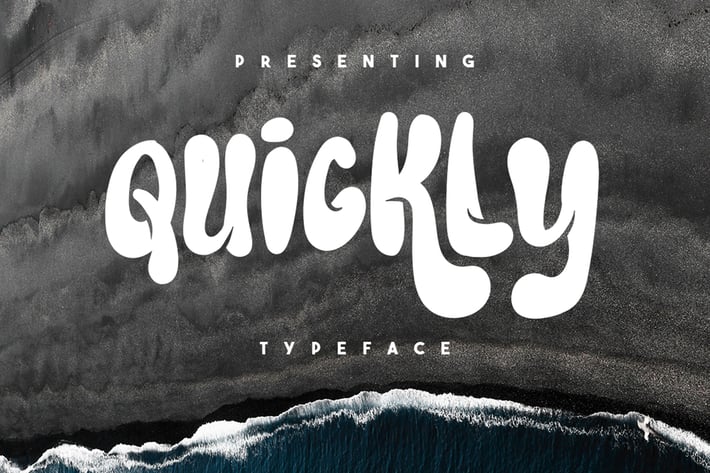
Quickly Typeface
a QUICKLY TYPEFACE is unique font and also has beautiful. Can make it easier to convey the message in your design. Use for awesome display, labeling, clothing, movie sceen, poster, movie title, gigs, album covers, logos, and much more.